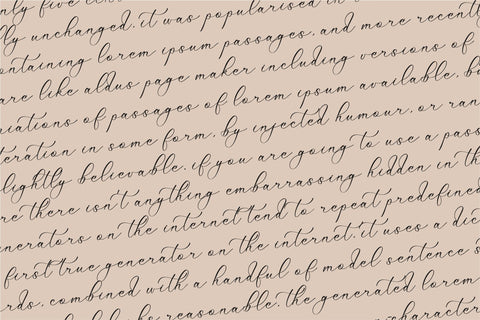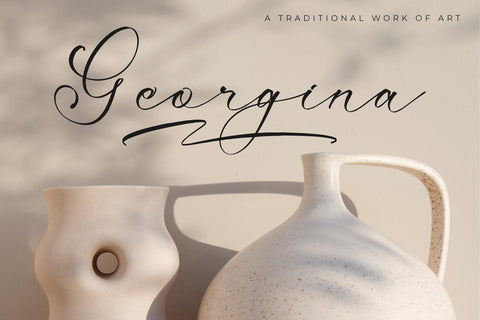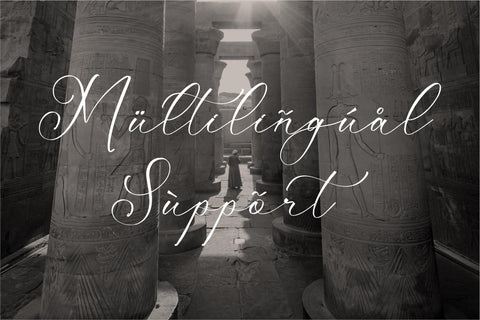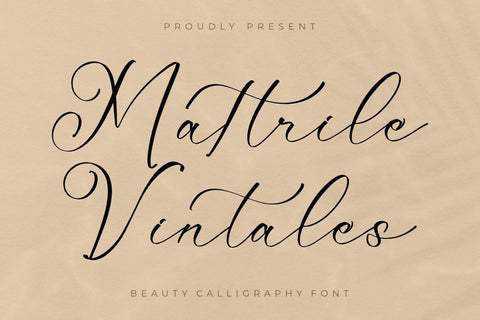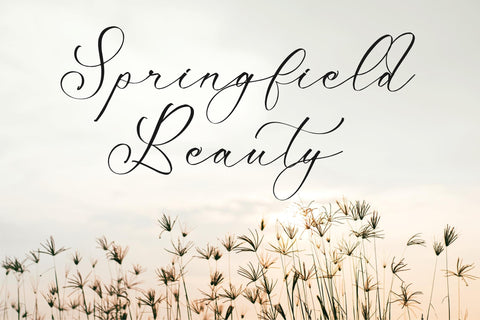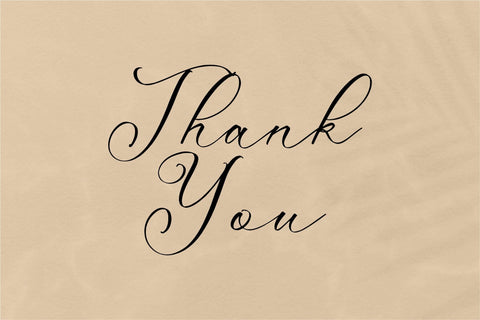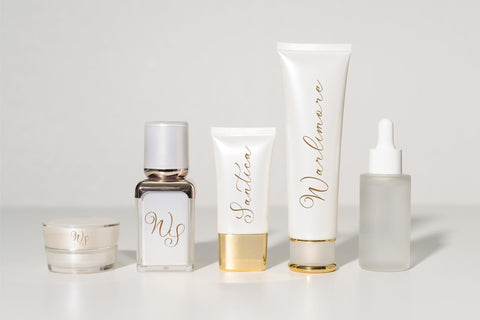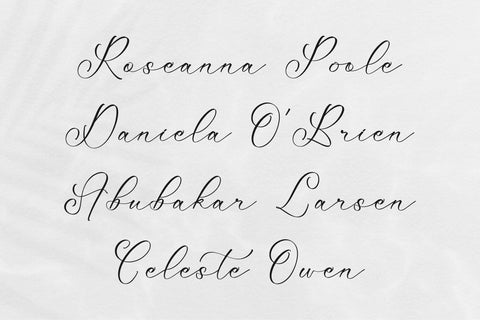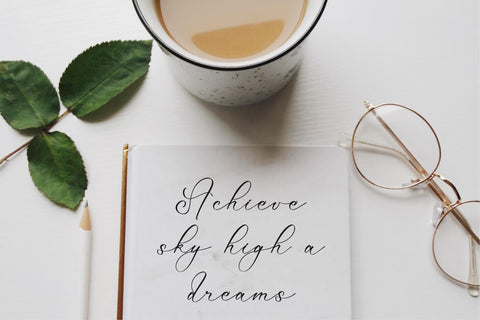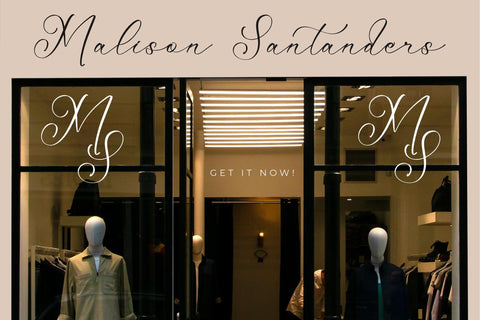
Mattrile Vintales - Beauty Calligraphy Font
Proudly present Mattrile Vintales - Beauty Calligraphy Font , created by Storytype,
A luxury script that has own unique style & modern look.